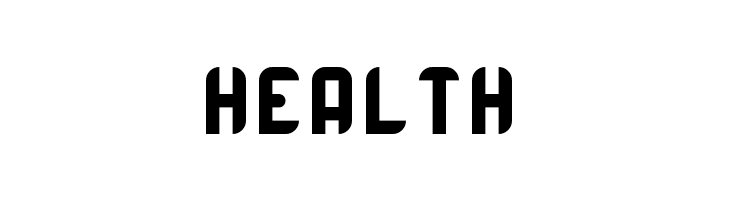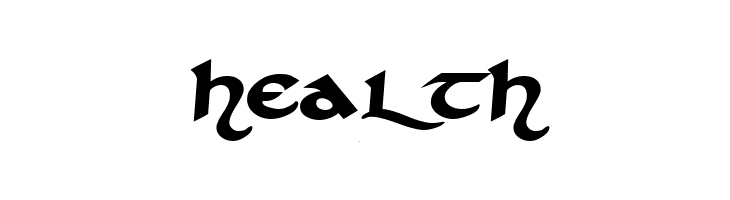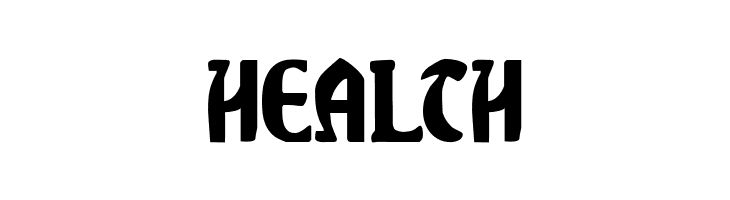
A modern, geometric font with a condensed, uniform design and rounded edges.
A bold, spiky font with dramatic, jagged edges for a striking visual impact.
A gothic, decorative font with sharp, elongated strokes and a distressed appearance.
A bold, gothic-inspired font with intricate details and a medieval flair.
A bold, blackletter-inspired font with sharp, angular lines and a gothic aesthetic.
A modern, clean sans-serif font with uniform stroke width and rounded edges.
A bold, modern font with a geometric and friendly design.
A clean, modern sans-serif font with geometric structure and uniform width.